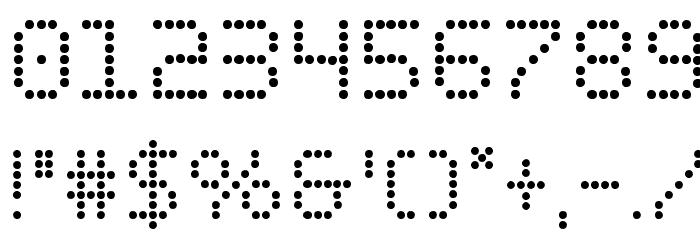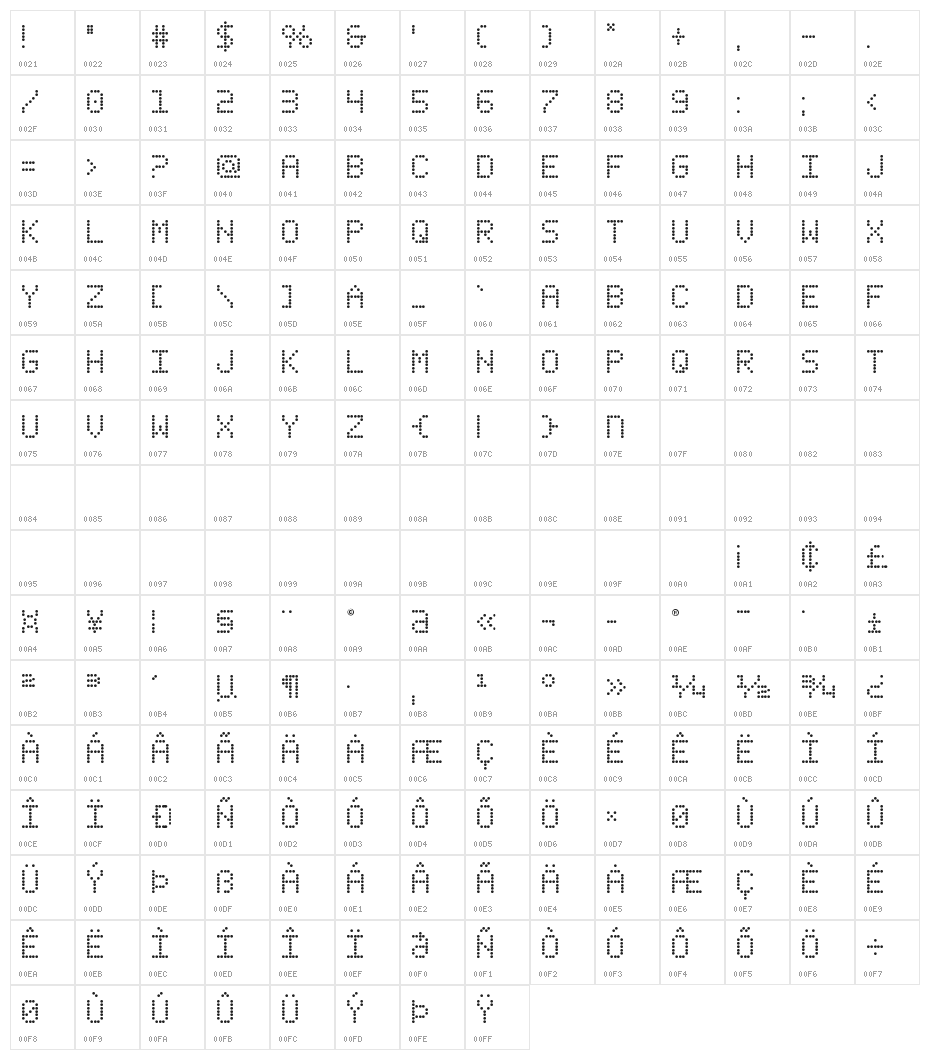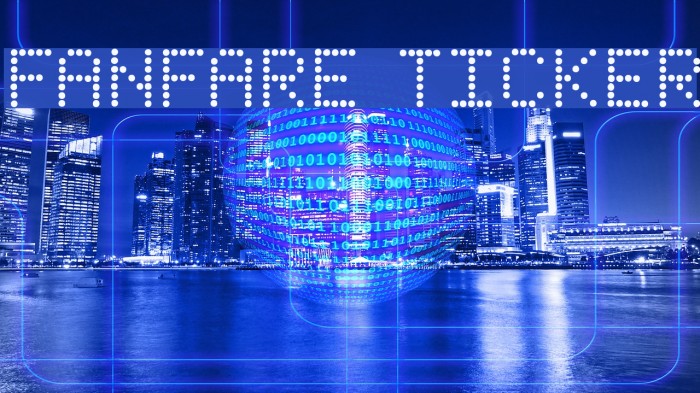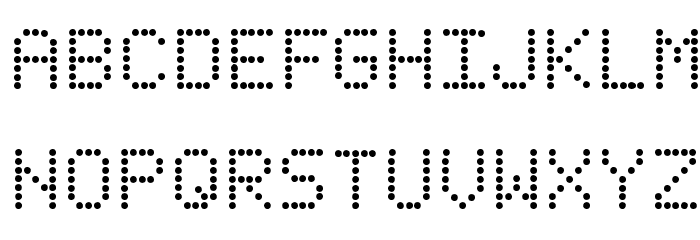
Fanfare Ticker Font
Fanfare Ticker Description
This font features a unique design composed entirely of dots, creating a digital and modern aesthetic reminiscent of LED displays or ticker tapes. Each character is formed by a grid of evenly spaced circular dots, giving it a pixelated and geometric appearance. The uniformity in the dot size and spacing ensures clarity and legibility, even at smaller sizes. This style is particularly effective for conveying a sense of technology and futurism. The font maintains consistent proportions across all characters, providing a balanced and cohesive look.
Use CaseHeadlines, Logos, Digital displays
Proposed ProjectsIdeal for digital displays, tech-themed designs, modern art projects, and innovative branding.